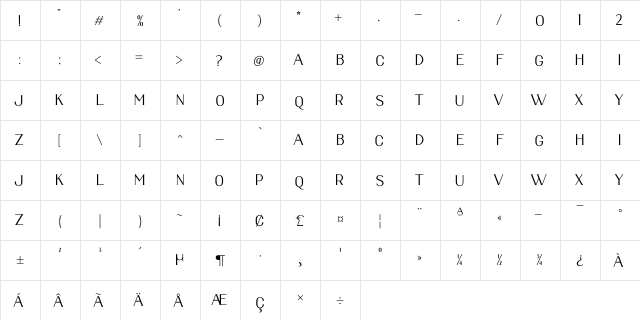
ALBERO Regular
| Designer | Sarwo Edhi Prayitno |
Design Context for ALBERO Typeface
ALBERO takes a measured approach to typography — its balanced proportions and neutral character make it a reliable workhorse for both digital and print work.